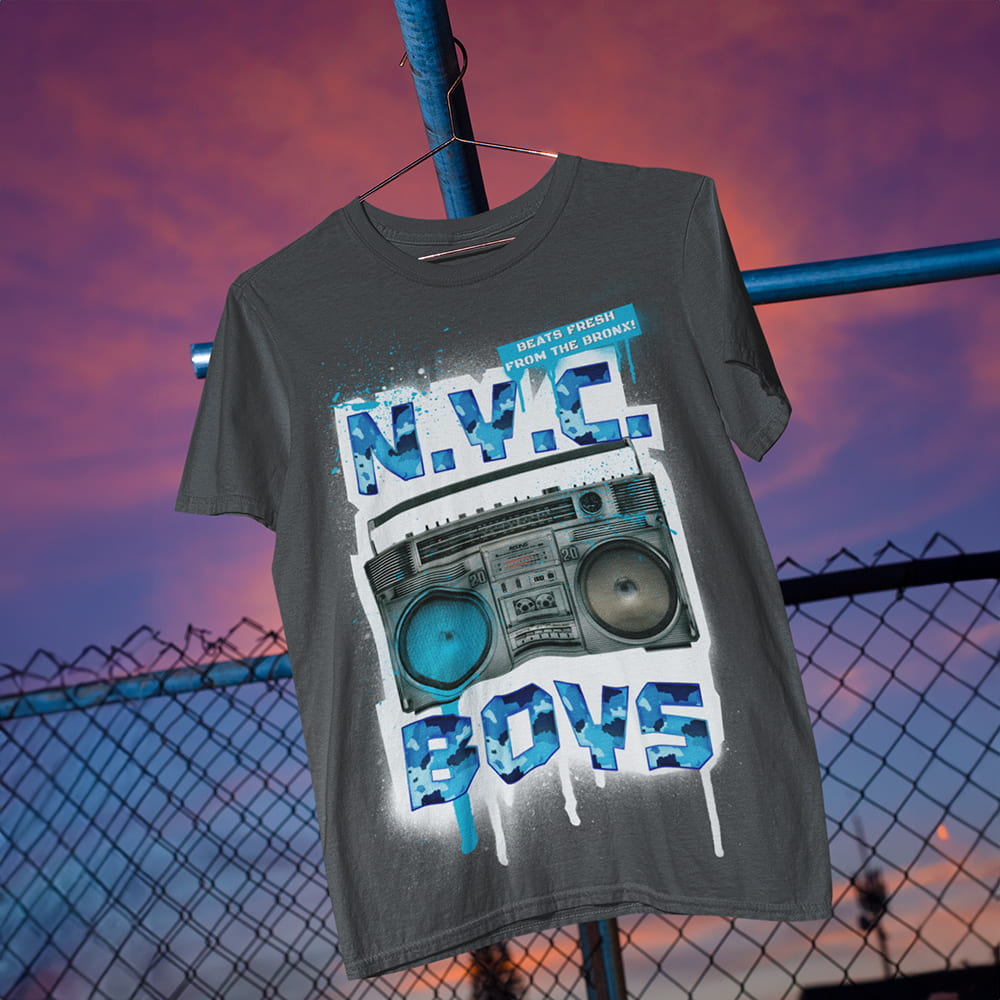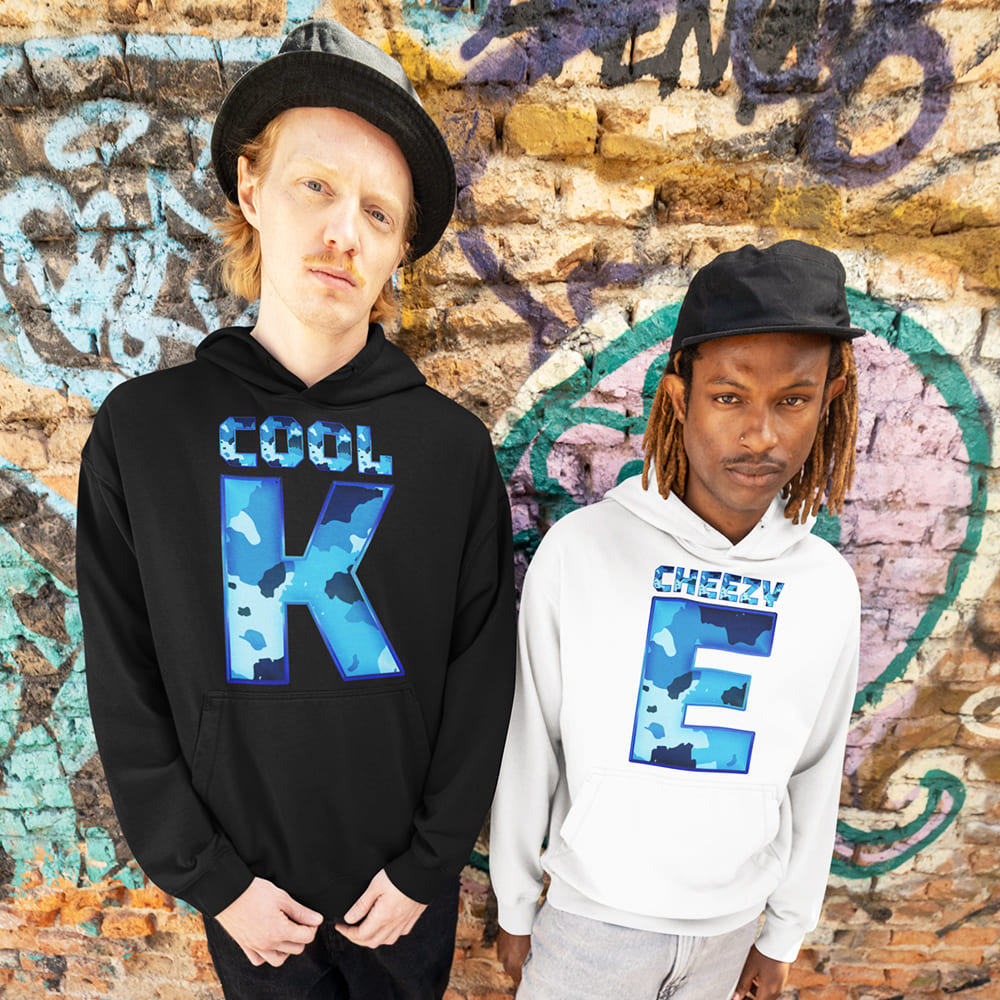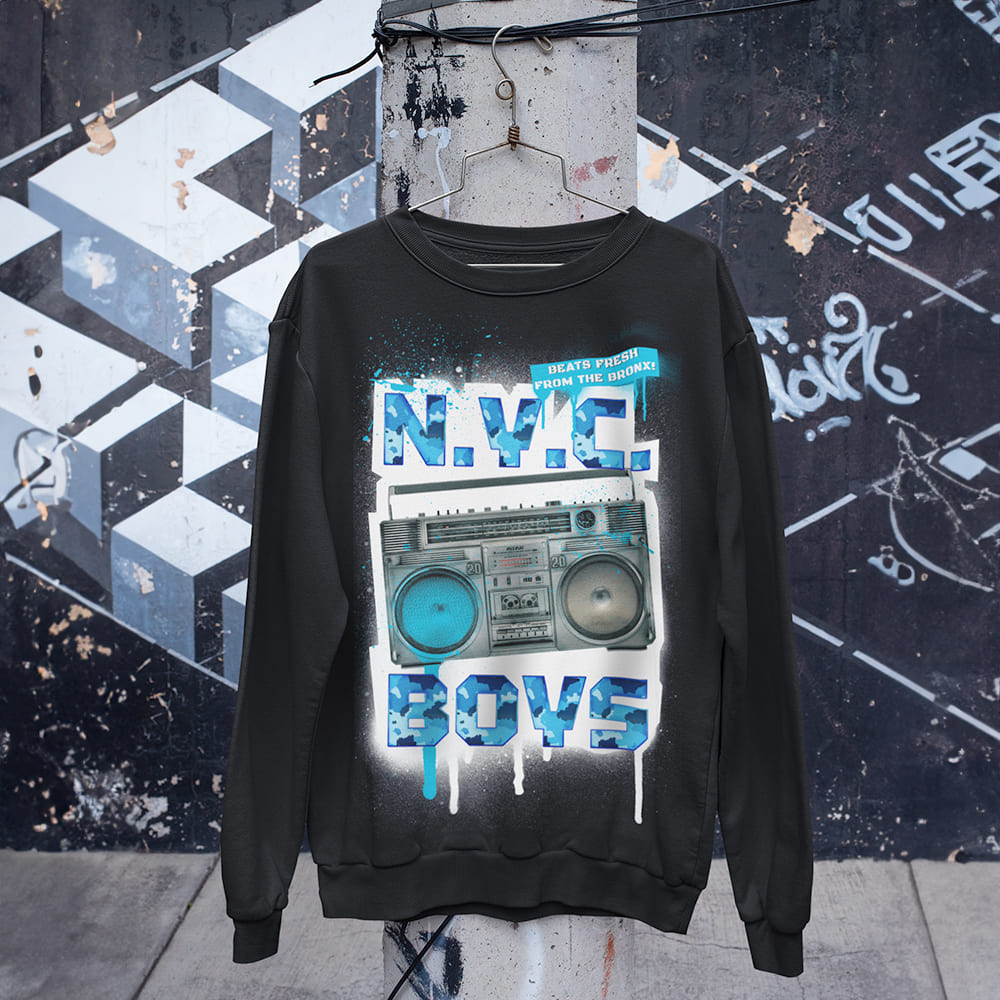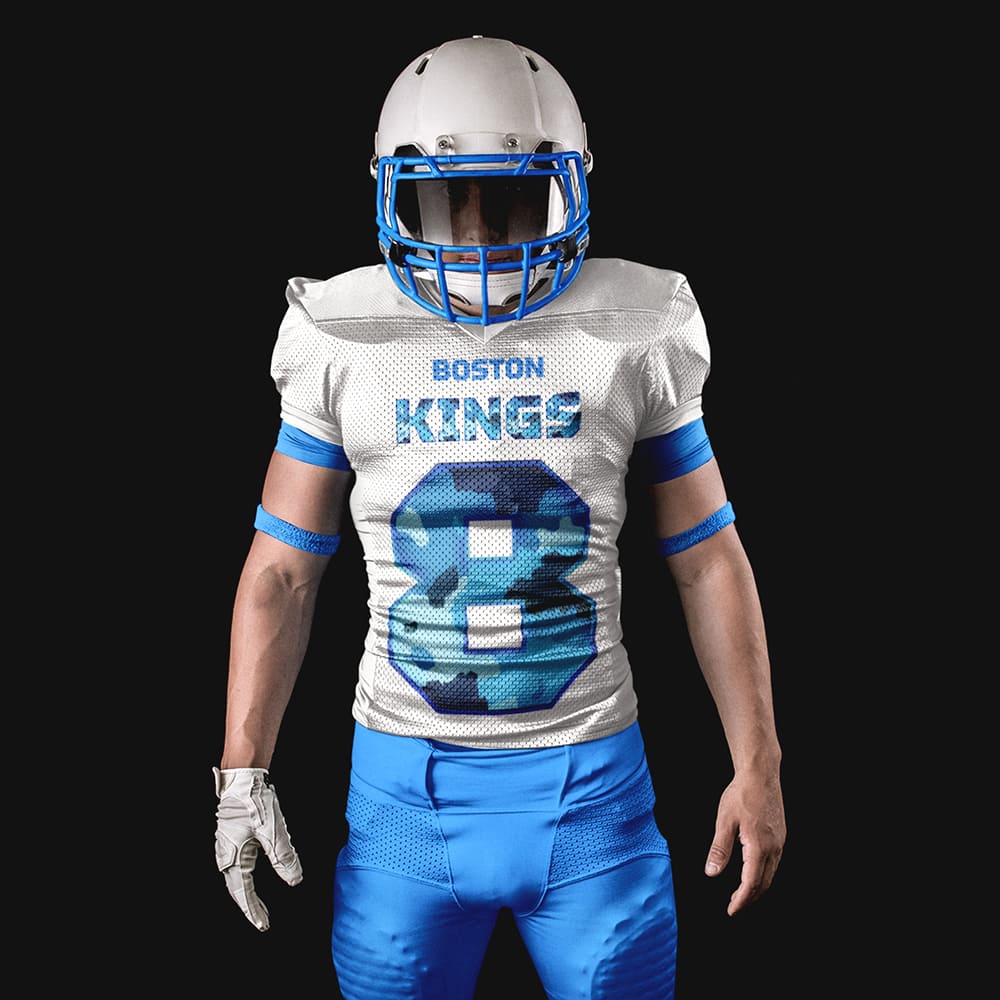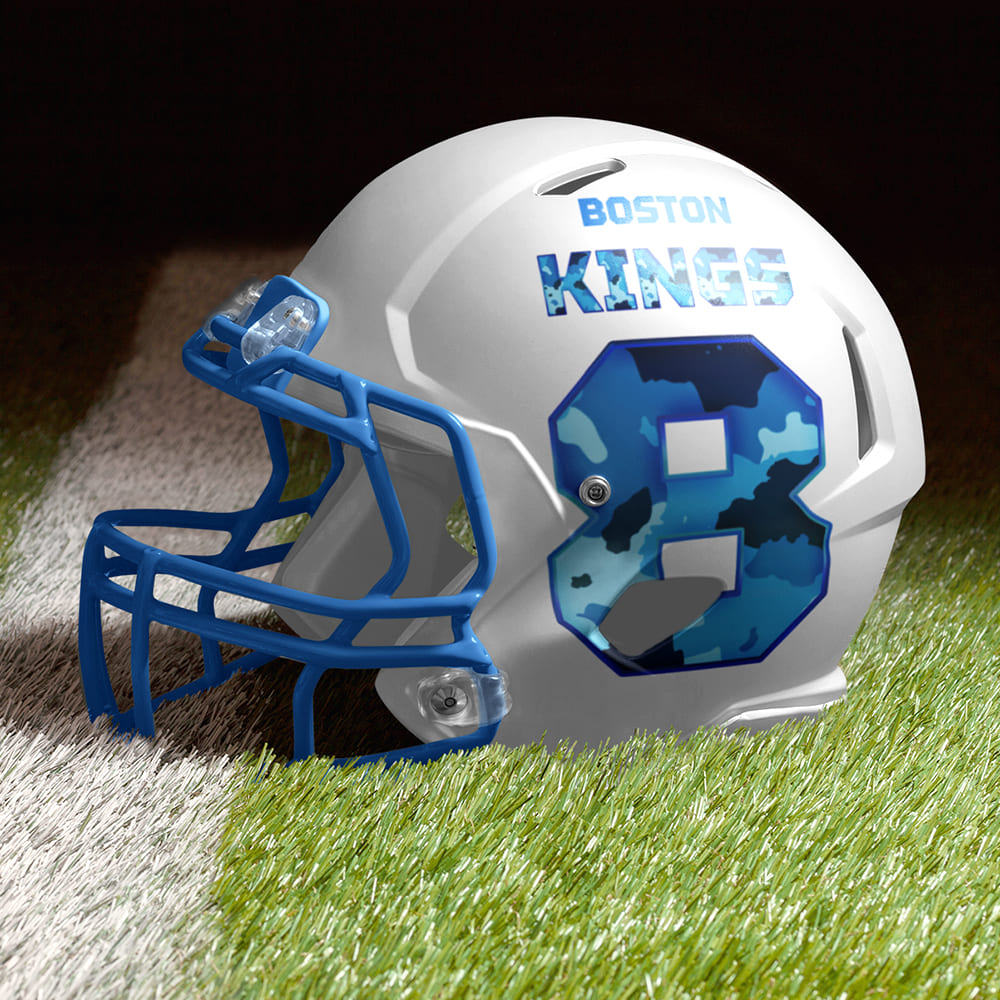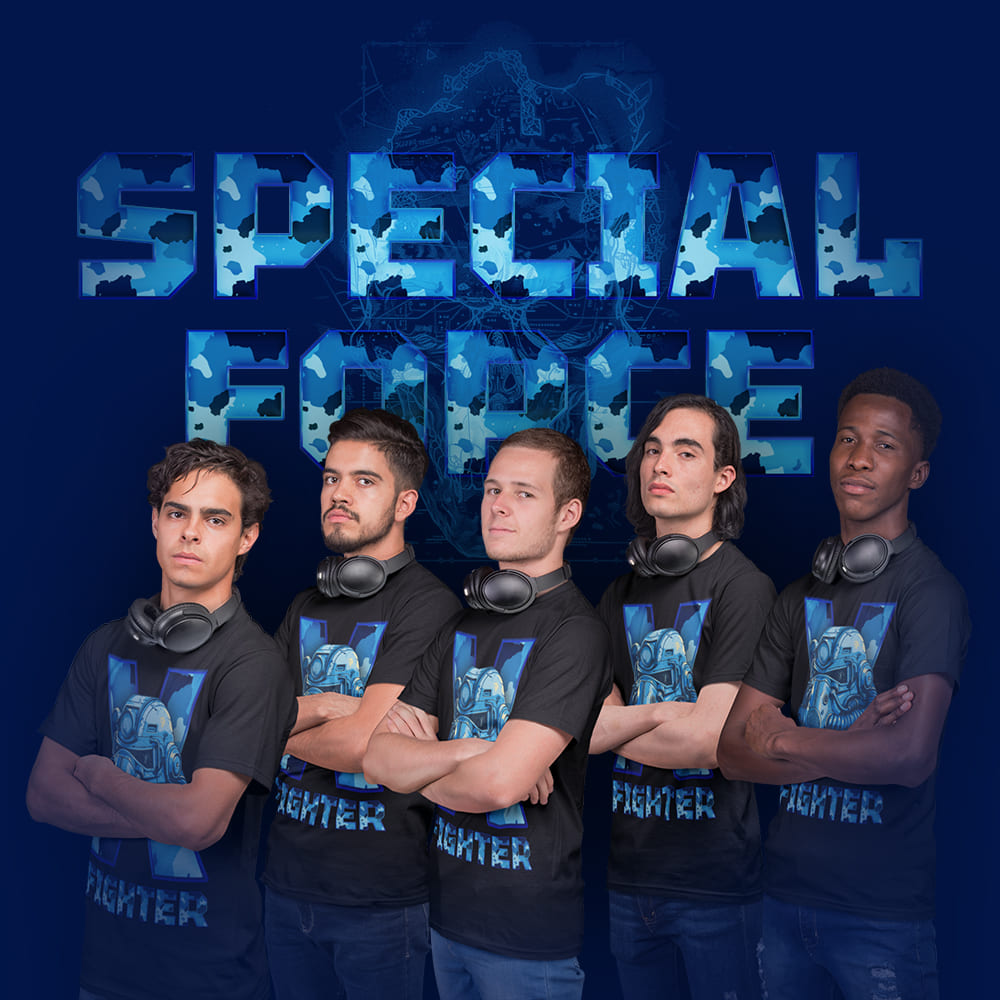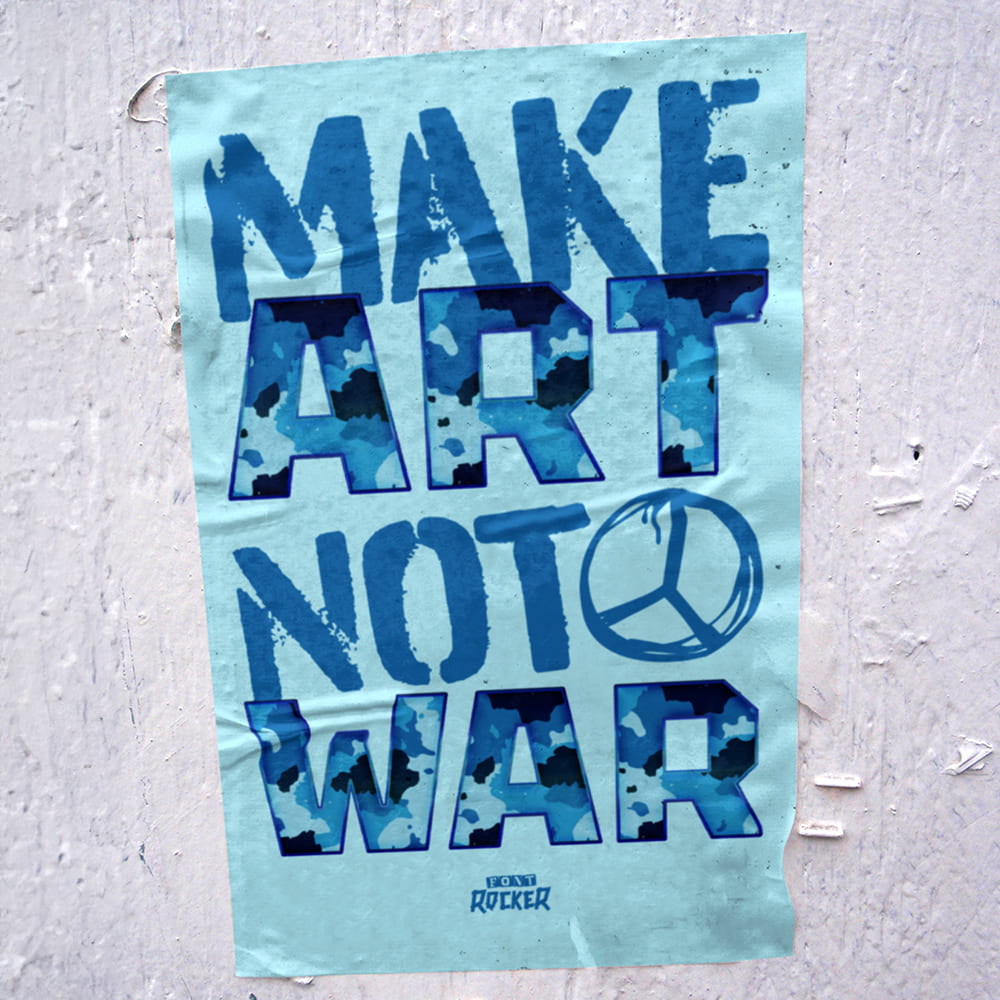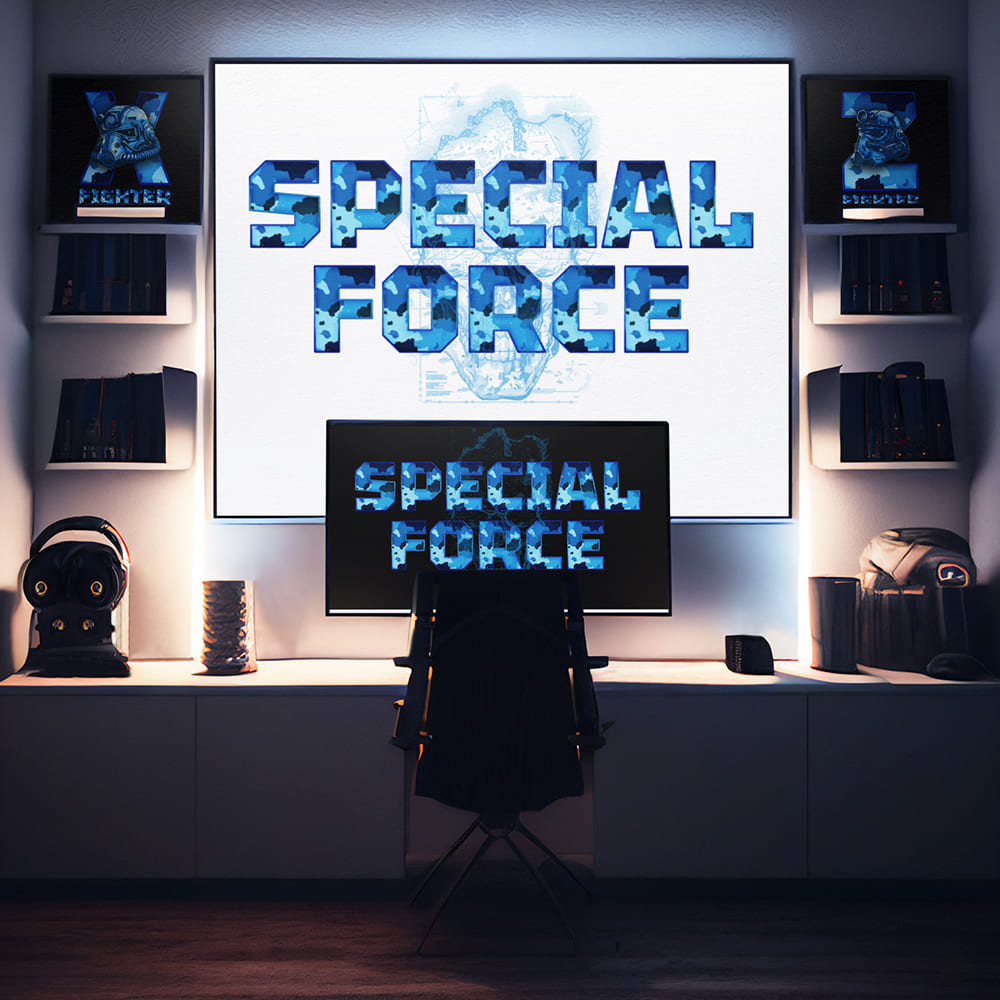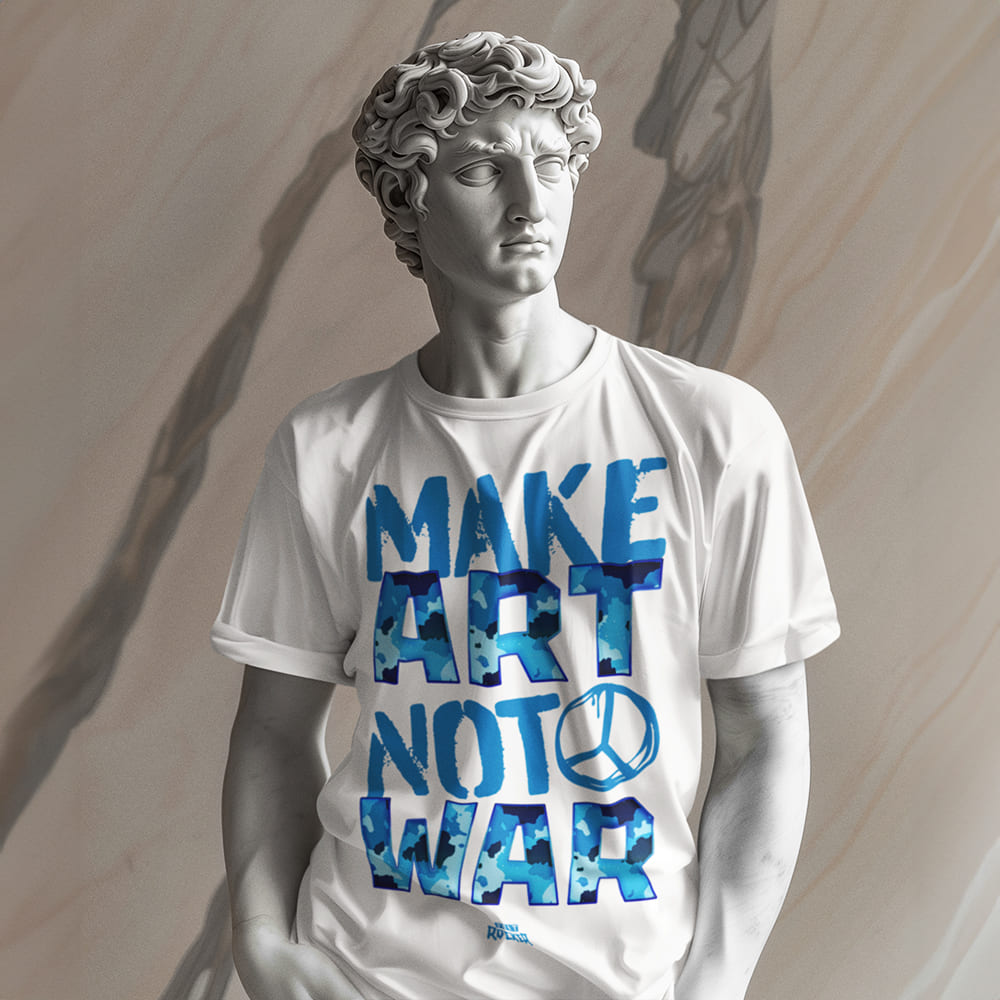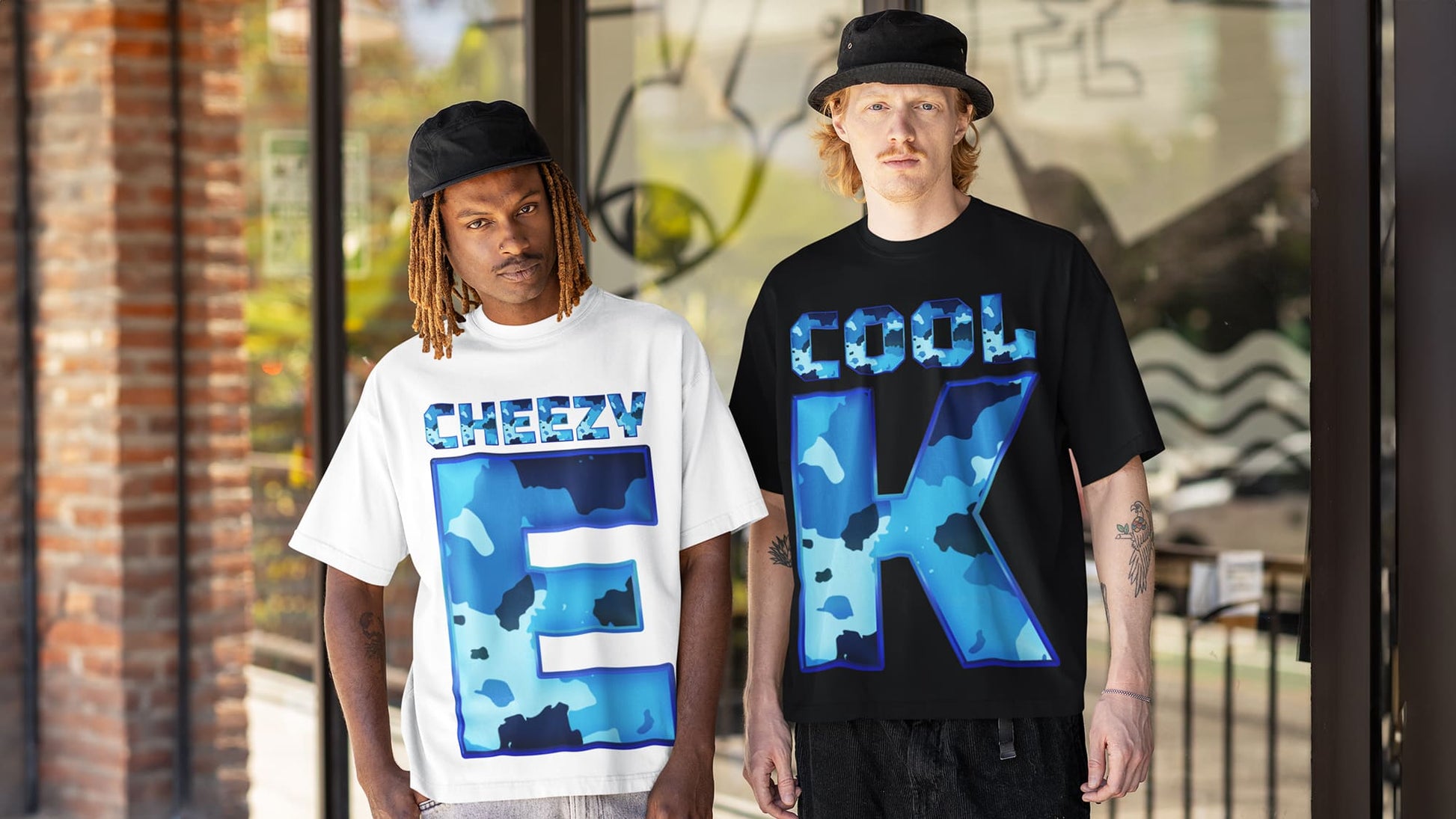
Boys Camouflage Font
Bold, Rugged, Unstoppable 🌄🛡️🎮
Camouflage isn’t just a pattern – it’s a symbol of adventure, action, and unshakable strength. The Boys Camouflage Font brings this high-energy aesthetic to your designs, blending a rugged military look with urban street style.
Why Choose the Boys Camouflage Font?
🔹 Masculine & bold – With its powerful lines and signature camo pattern, this font exudes strength, energy, and a fearless attitude.
🔹 Perfect for striking designs – Whether for gaming, streetwear, outdoor branding, or action posters, this font takes your message to the next level.
🔹 Versatile & modern – Inspired by urban trends, this font fuses classic army elements with a fresh, contemporary edge. Ideal for designs that demand attention and leave a lasting impression.
Make a Statement with the Boys Camouflage Font
Make your design loud, bold, and unforgettable! This font is the perfect choice for anyone looking to create a confident, rebellious, and action-packed style.
🔹 Stand strong. Stand bold. Stand Camouflage.
🔹 Choose power. Choose adventure. Choose the Boys Camouflage Font.